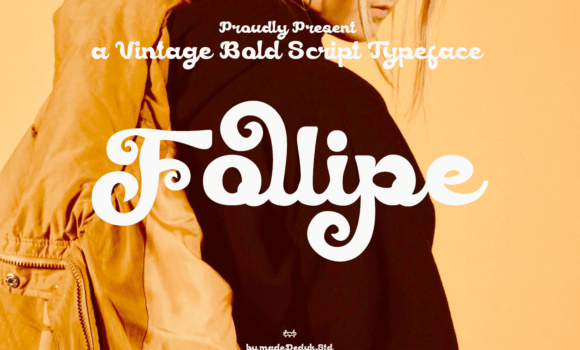
follipe
Follipe Font – Free Download Introduction to Follipe Font Follipe is a groovy font 80’s script with curly style that comes with a lot alternative and ligature. 📸 Preview Gallery 6 images 📌 Product Name Follipe Font 👤 Author madeDeduk